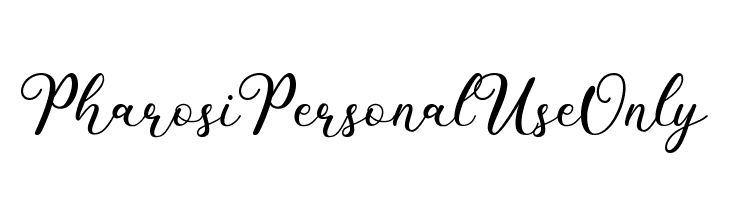
( Fonts by Ketikata Studio - Fuad Hasan - Personal-use only. For commercial use please contact owner. )
A bold, expressive script font with a dynamic handwritten style.
( Fonts by Astigmatic One Eye Typographic Institute - Brian J. Bonislawsky - astigmatic.com )
A decorative symbol and shape dingbat set.
( Fonts by Fadlilah Studio - Personal-use only. For commercial use please contact owner. )
A playful and whimsical script font with elegant curves and decorative swashes.
( Fonts by Fadlilah Studio - Personal-use only. For commercial use please contact owner. )
A playful script font with decorative swashes and a handwritten feel.
( Fonts by Allouse Studio - Personal-use only. For commercial use please contact owner. )
A modern-vintage blend with elegant curves and distinct letterforms.
( Fonts by Creatype Studio - Rian Rahardi - Personal-use only. For commercial use please contact owner. )
A bold, energetic script font with a hand-painted, dynamic style.
( Fonts by a kmzero font foundry - www.zetafonts.com. Personal-use only. For commercial use please contact owner. )
A fluid and expressive handwritten cursive font.
( Fonts by APG Studios )
A playful, bold, and hand-drawn style font with rounded edges.
( Fonts by FallenGraphic Studio - Vava Aryanto - Personal-use only. For commercial use please contact owner. )
A bold, flowing script font with elegant, hand-drawn curves.
( Fonts by AstianaGT Studio )